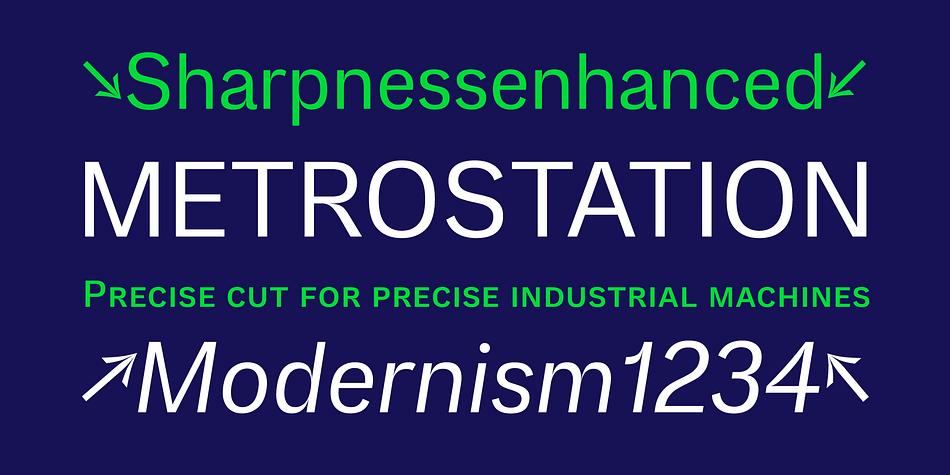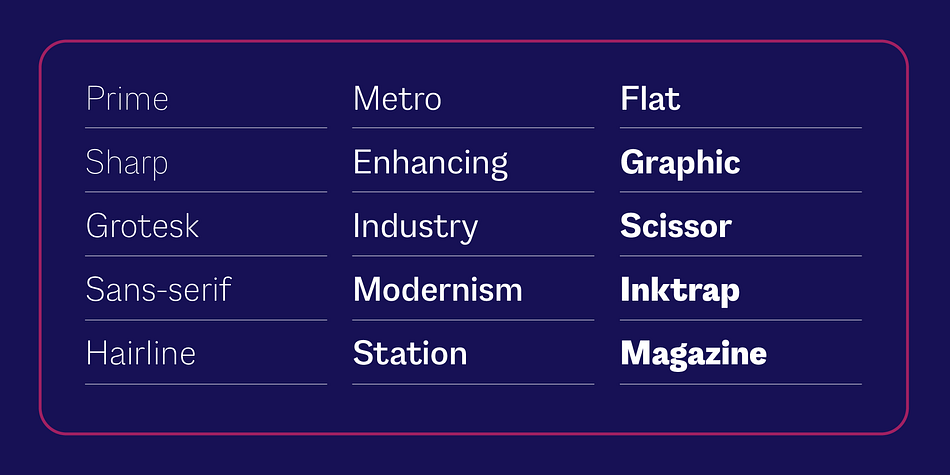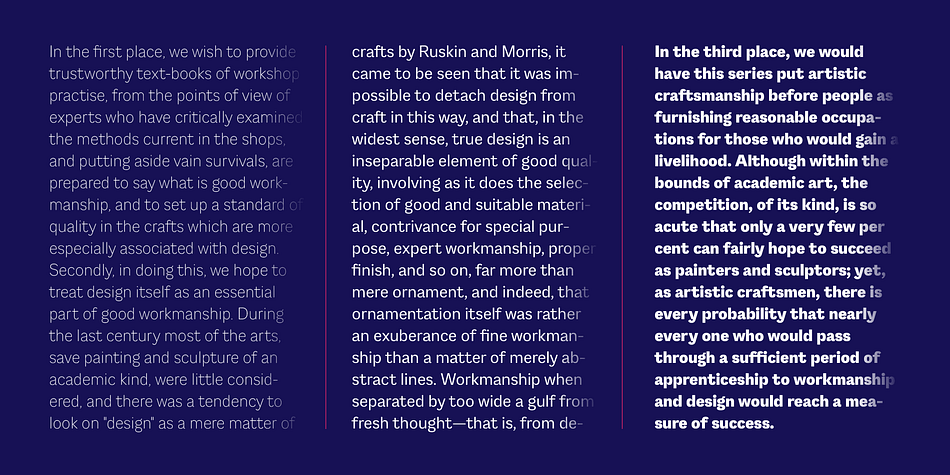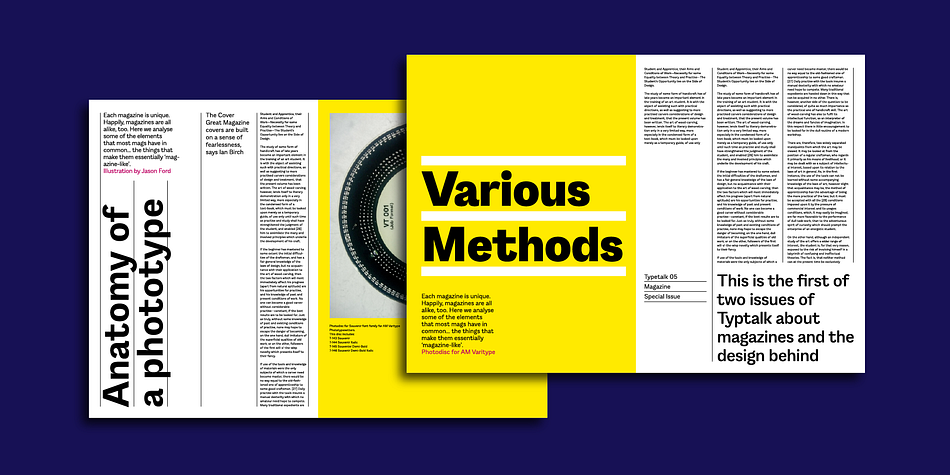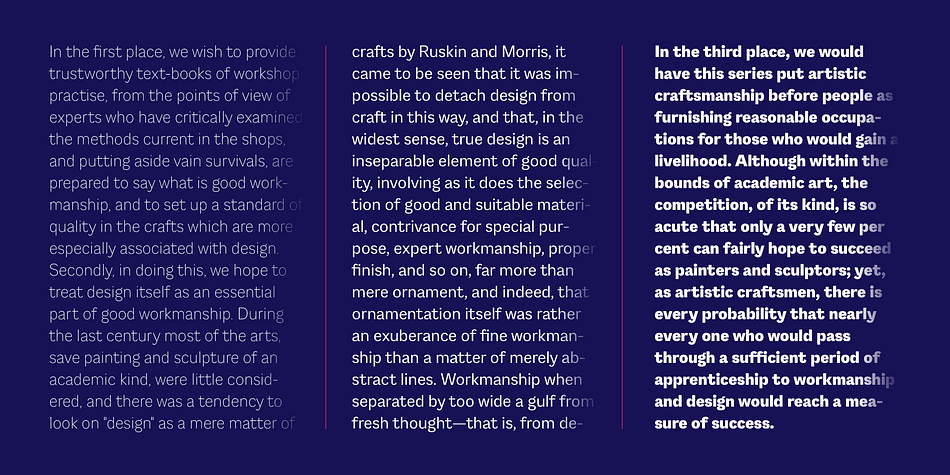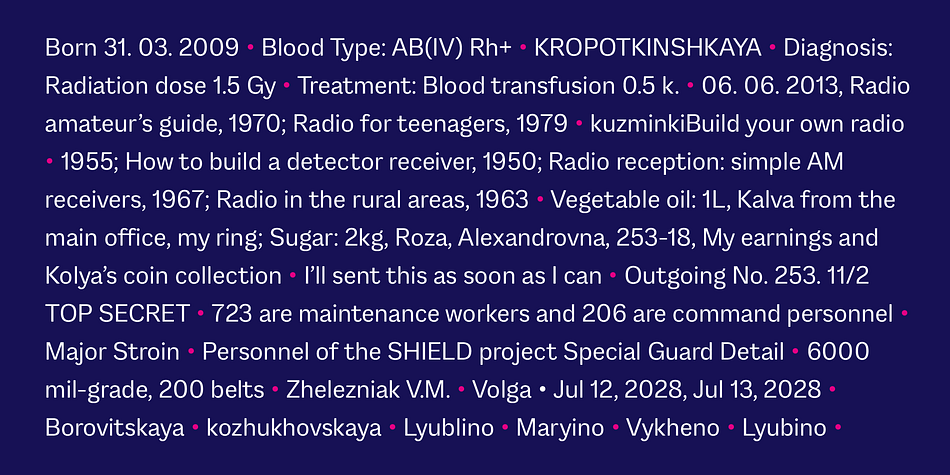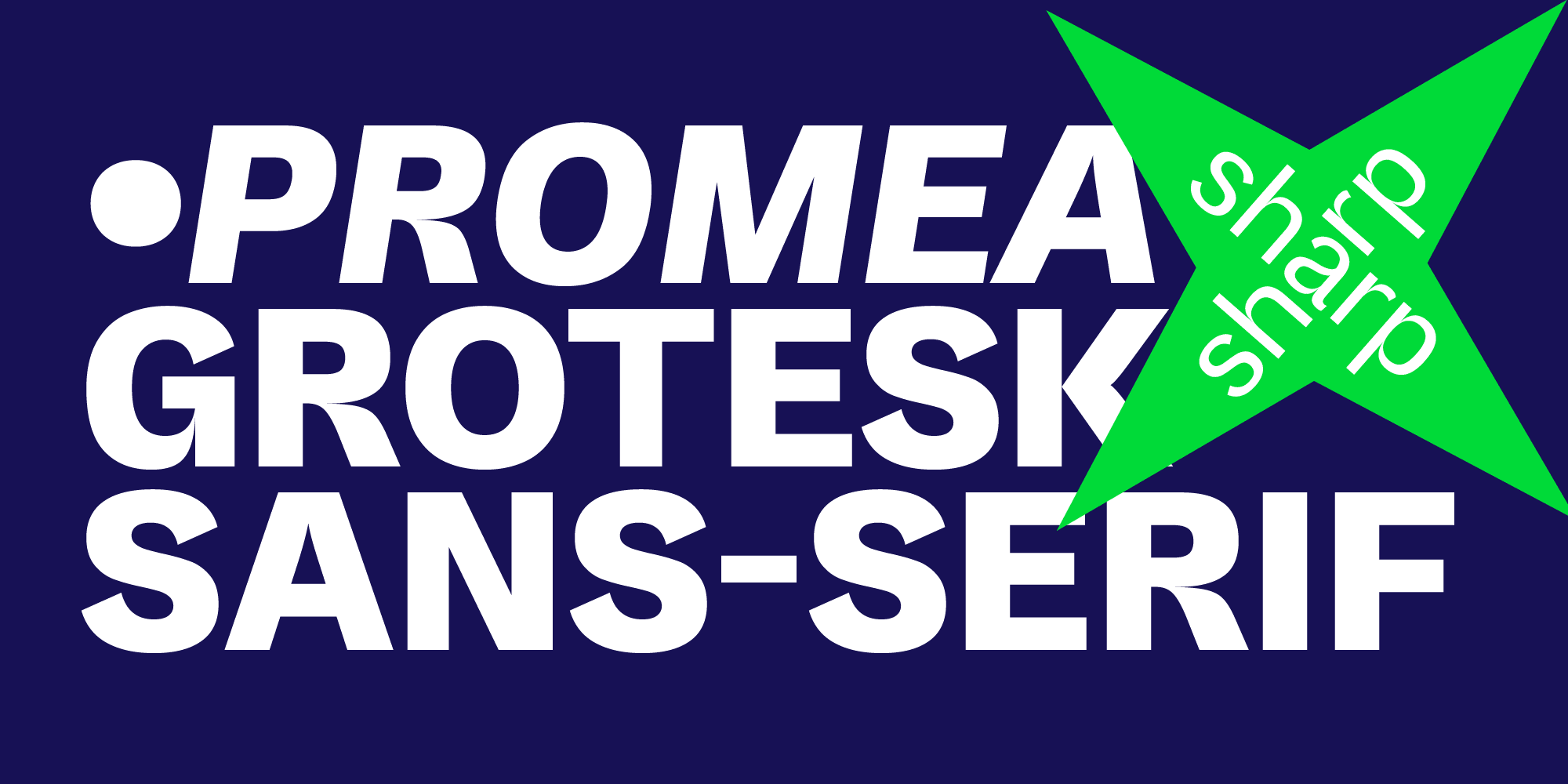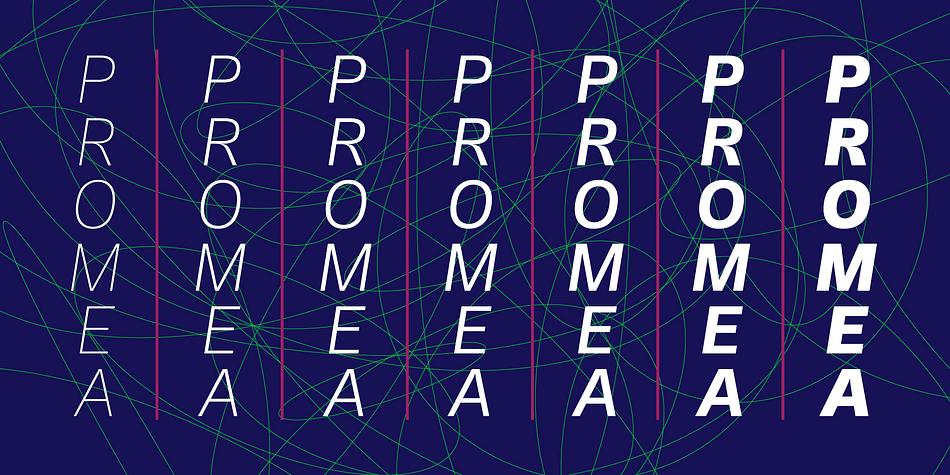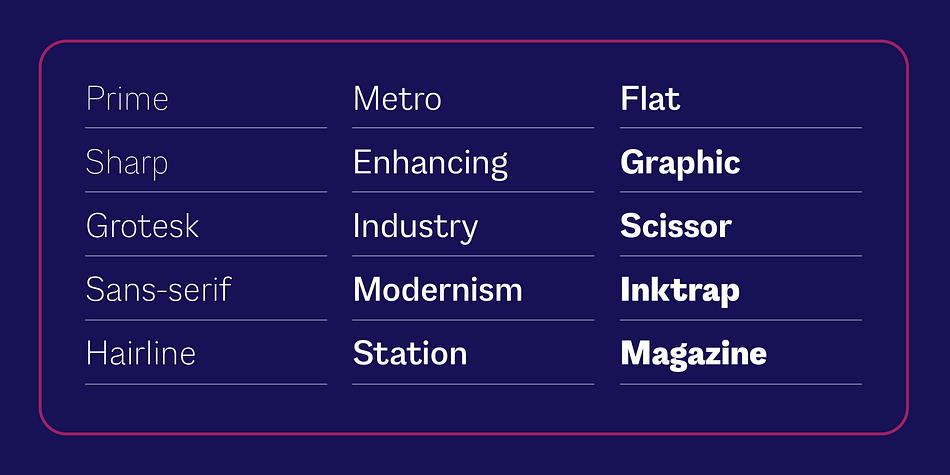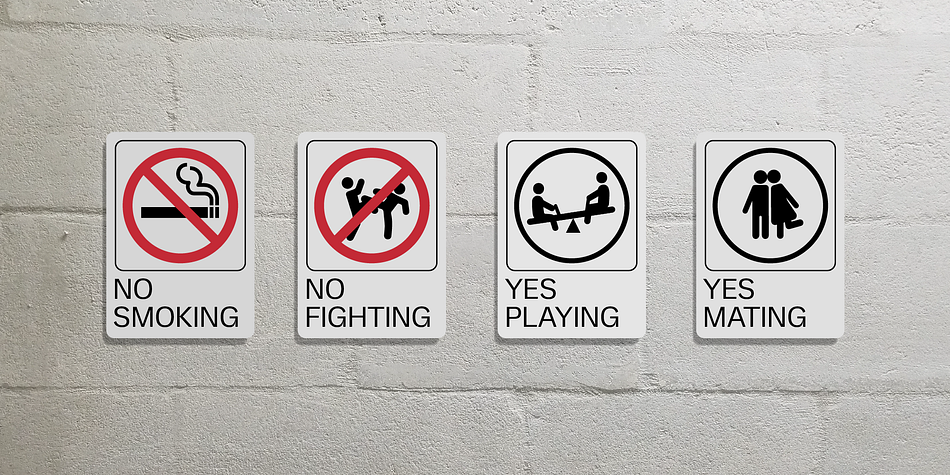
Promea
Designed by Yuexin Huo, Promea is a sans serif font family. This typeface has fourteen styles and was published by YXType.
Promea is a Grotesk font meticulously designed with precise engineering in mind. Its amount of kerning, support for tabular/proportional figures, slashed zero, and fractions will make sure it performs well in all types of environments. The stylistic inktraps combined with low x-height and high contrast will surely bring you the sharpest typographic experience ever.
The font is perfect for text environments like magazines, but it excels at displaying its full range of characteristics.